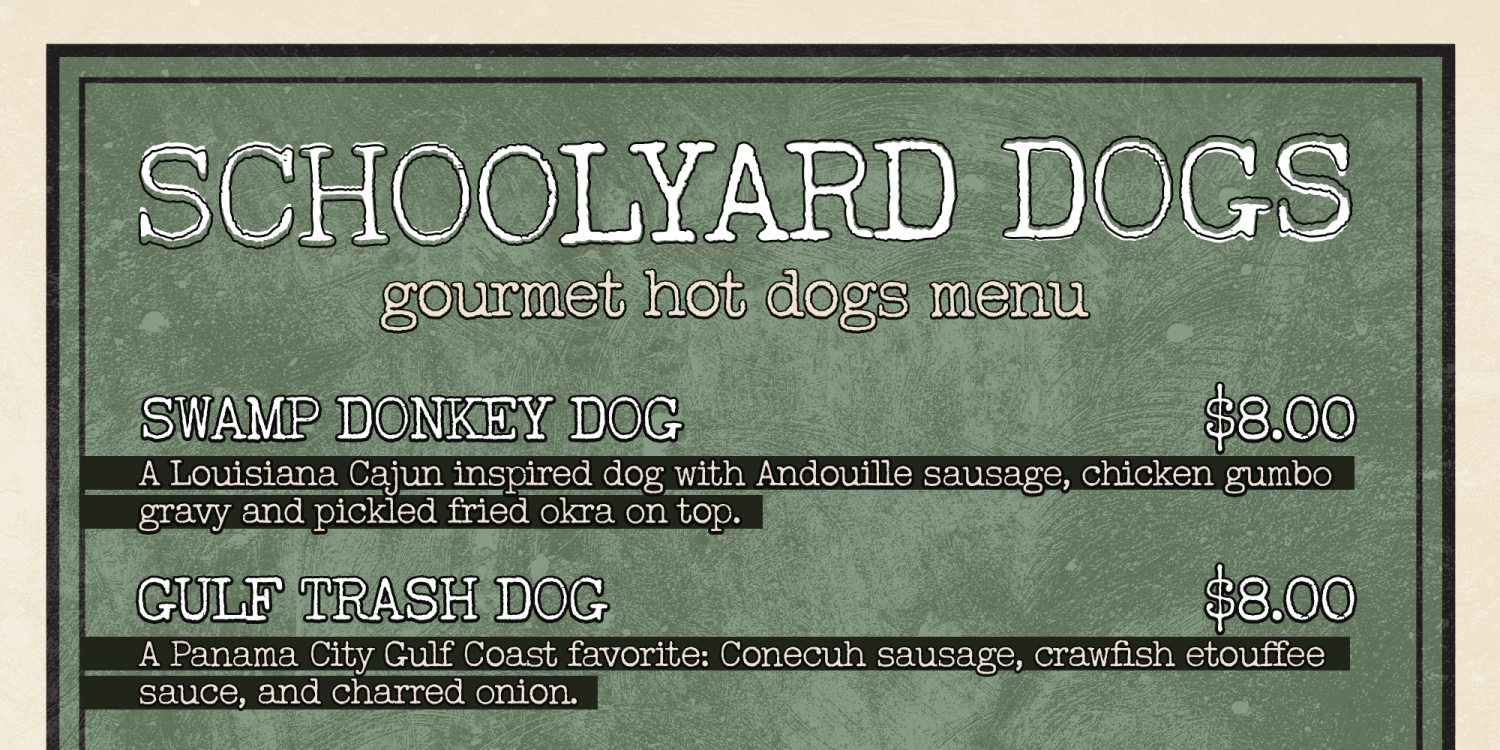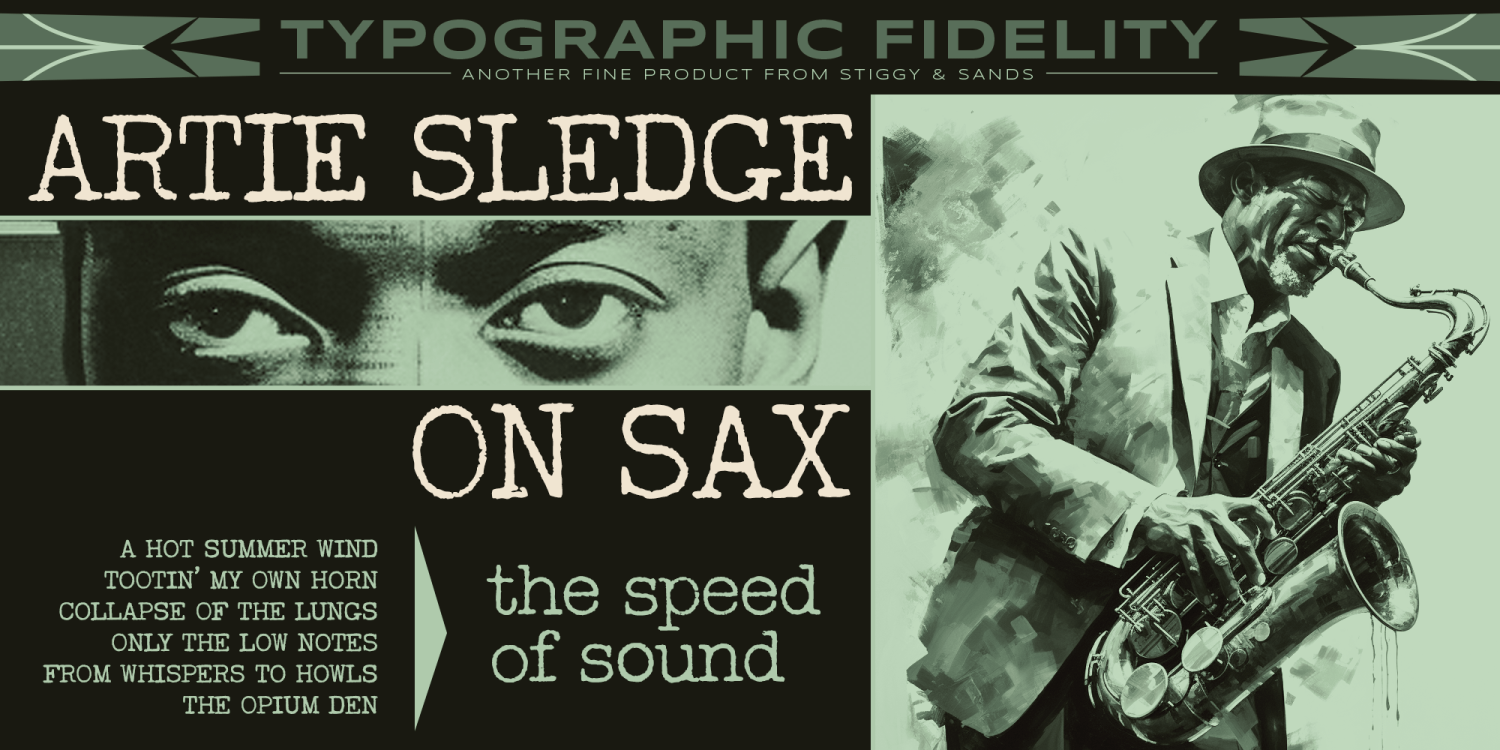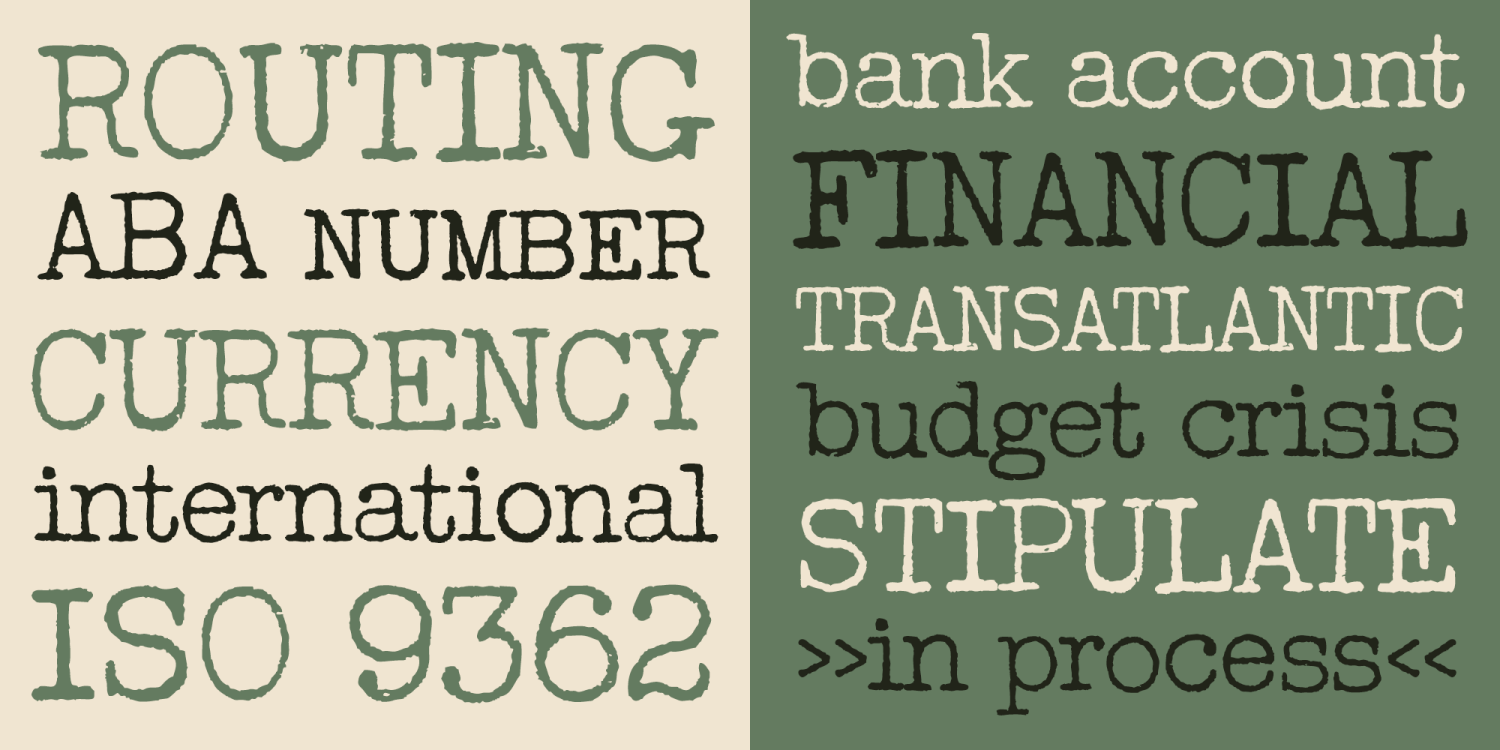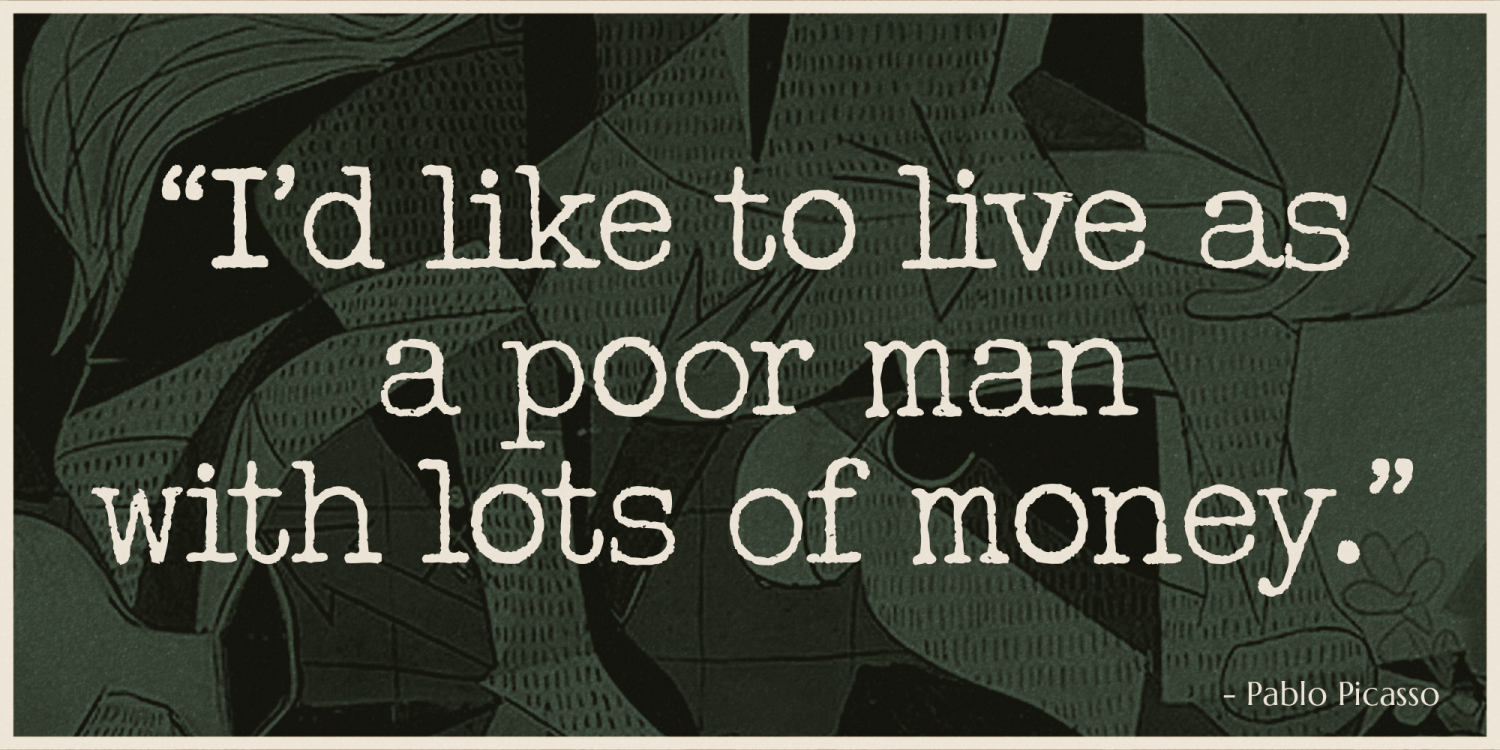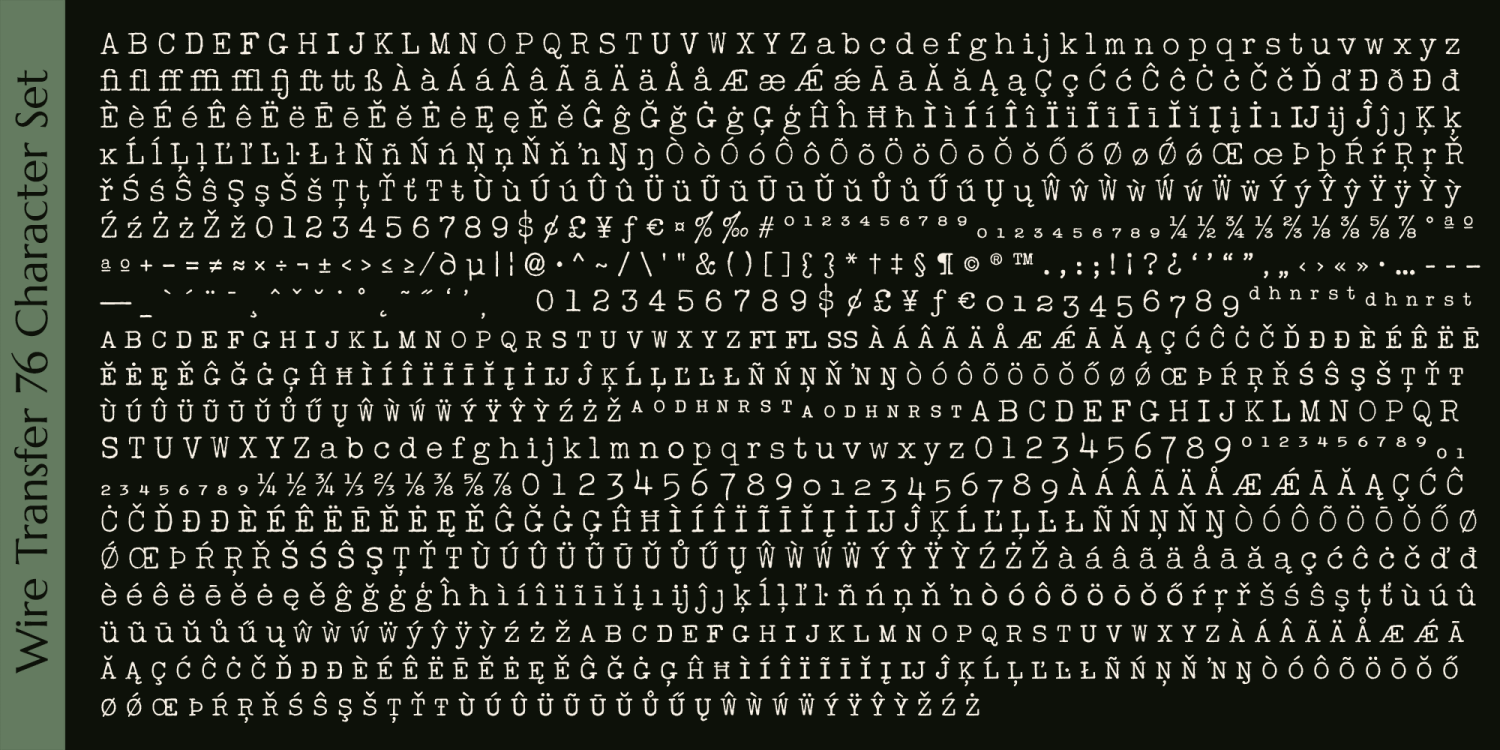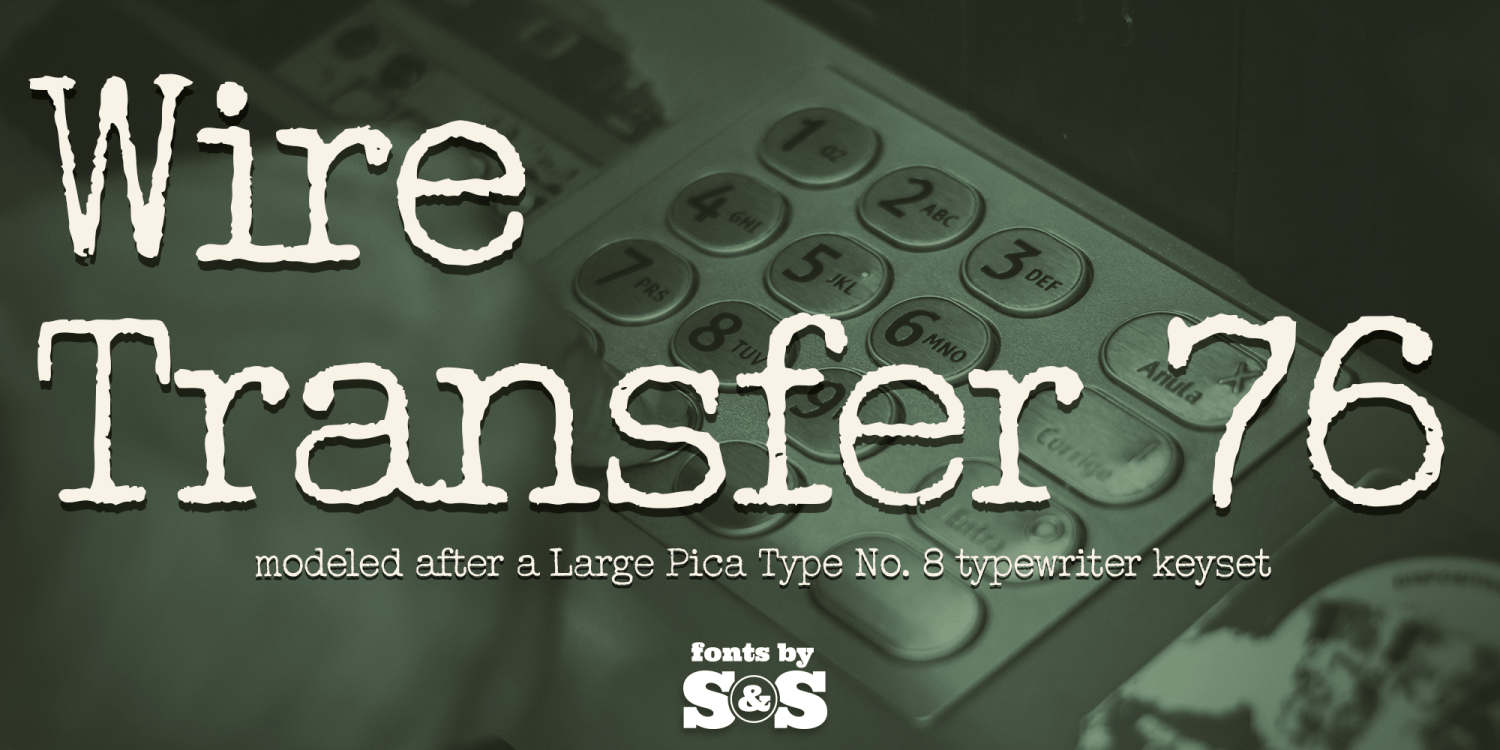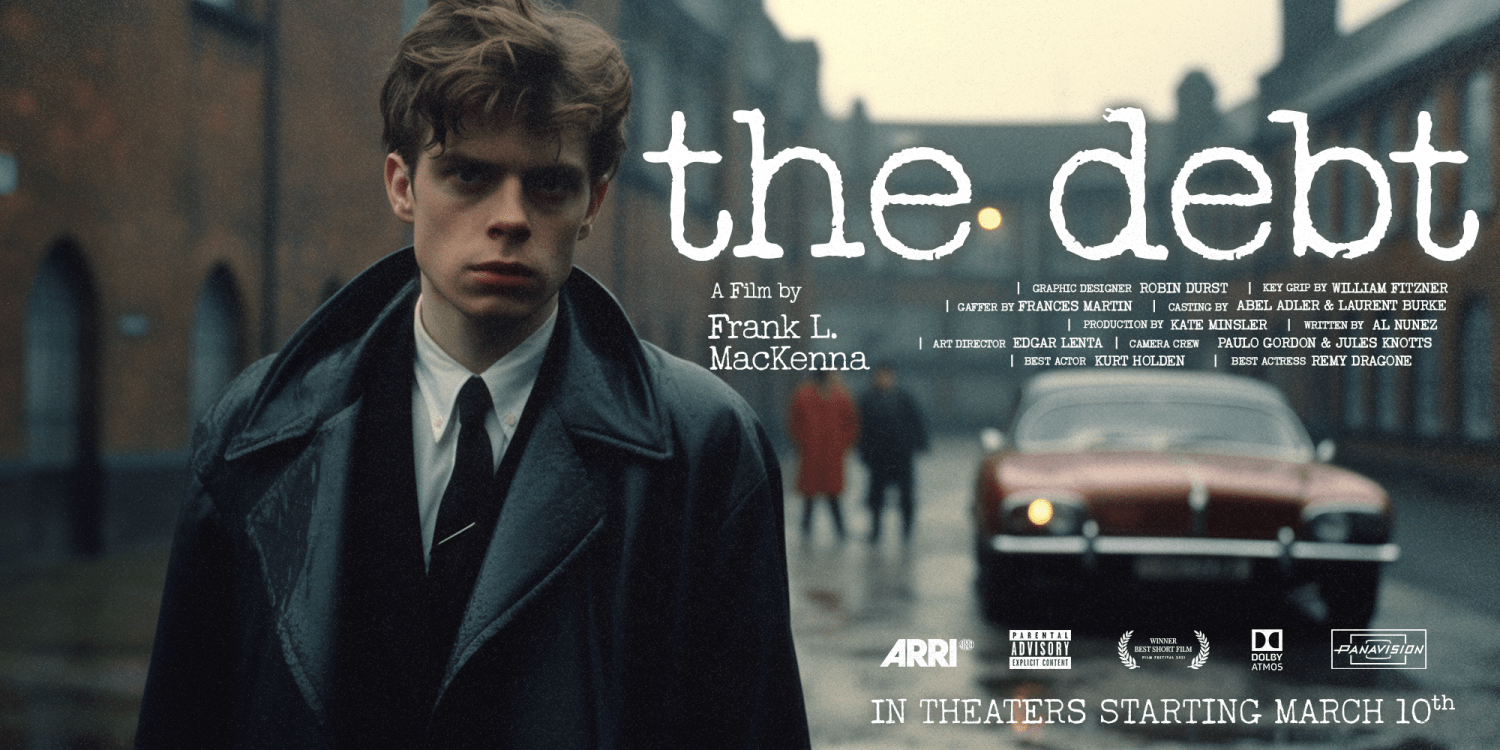
About Wire Transfer 76
Wire Transfer 76 brings the unique individuality of the Large Pica Type No. 8 vintage typewriter keyset to the digital age. Antique typewriters would type with a warmth and appeal to them, primarily because of their unpredictable “grunge”…